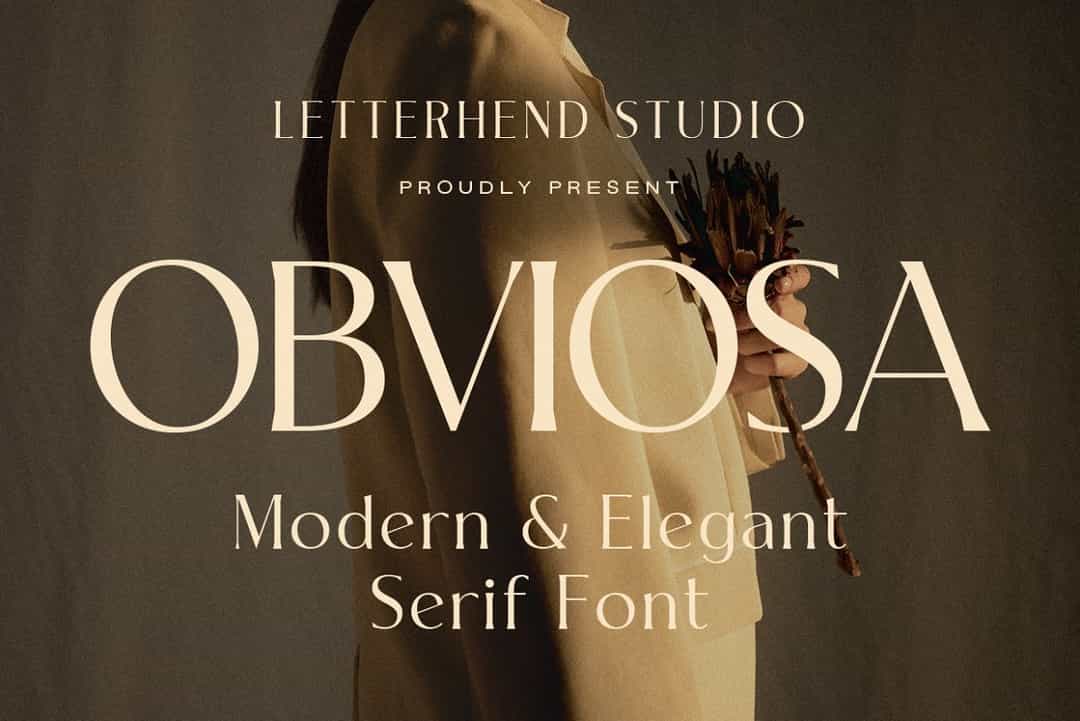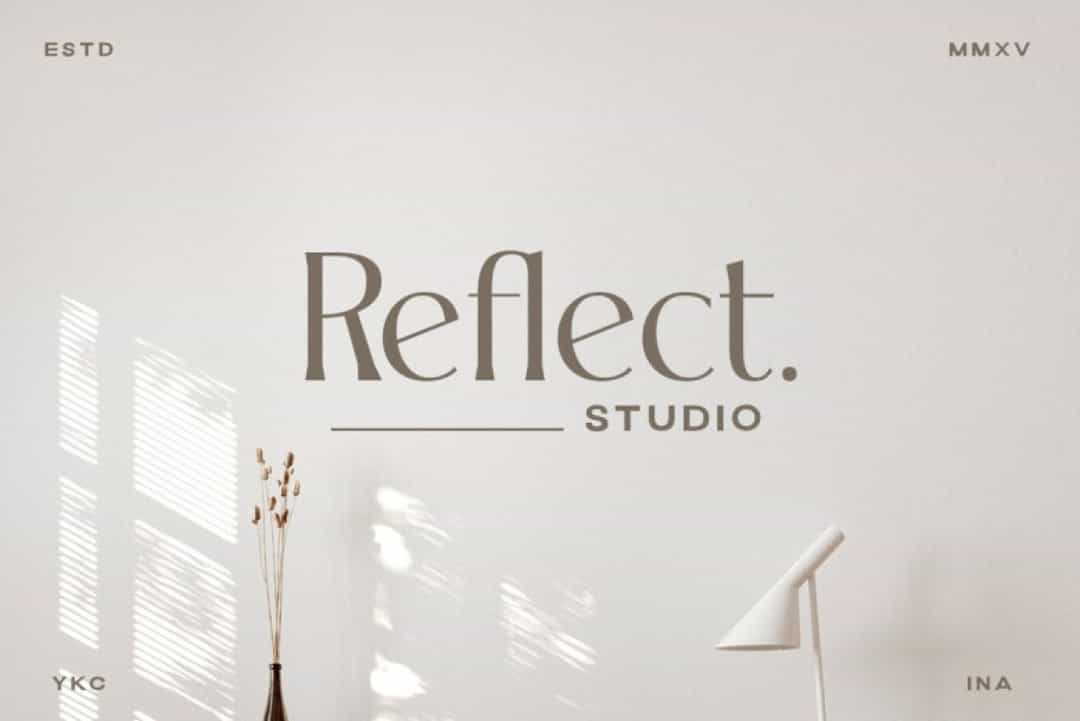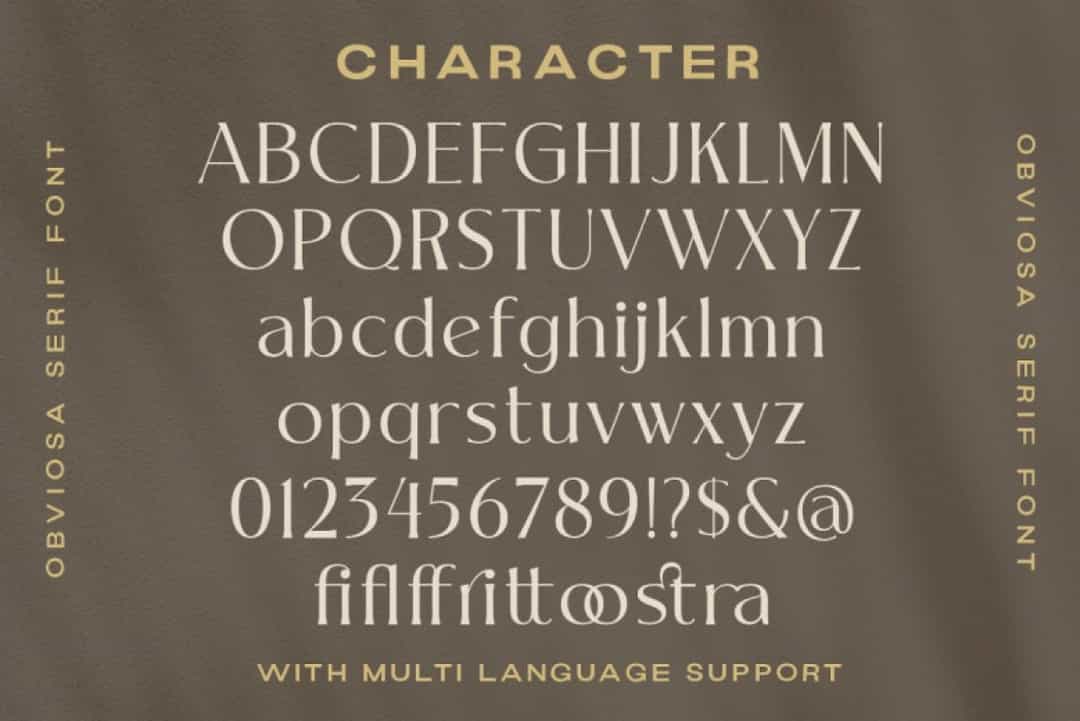
Obviosa is an elegant serif typeface which exudes style and contemporary aesthetic. The slim strokes of its font create a sense of sophistication ideal for high-end designs such as wedding invitations or business presentations, with its slim lines adding elegance and sophistication. Obviosa will bring class to any design project!